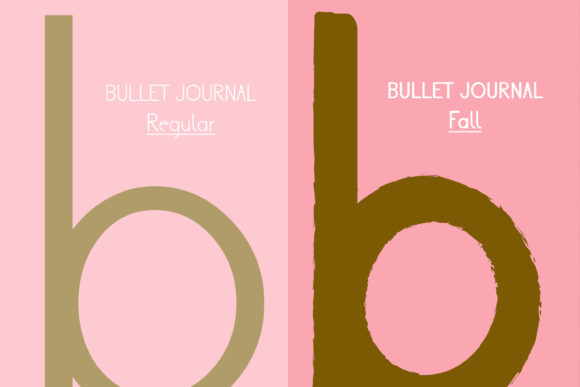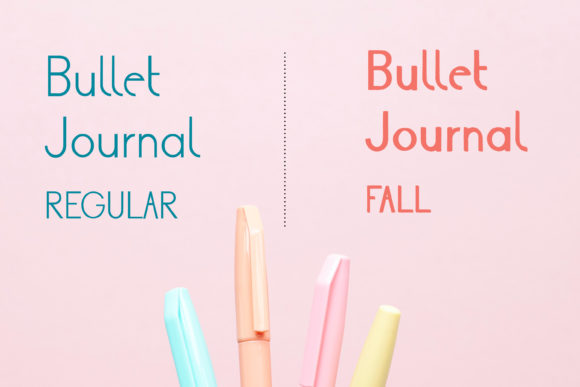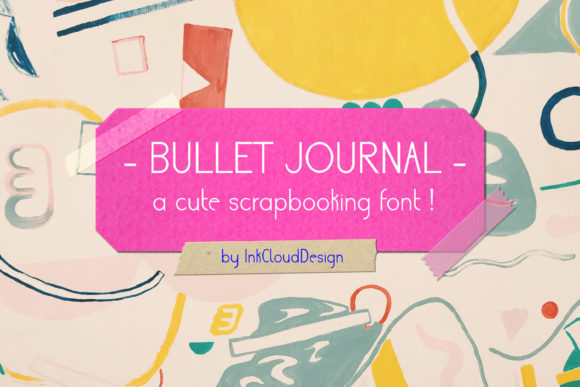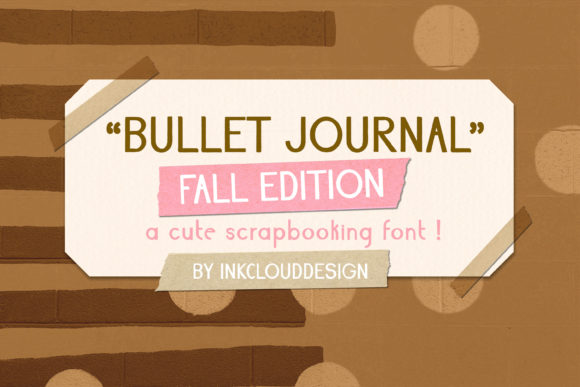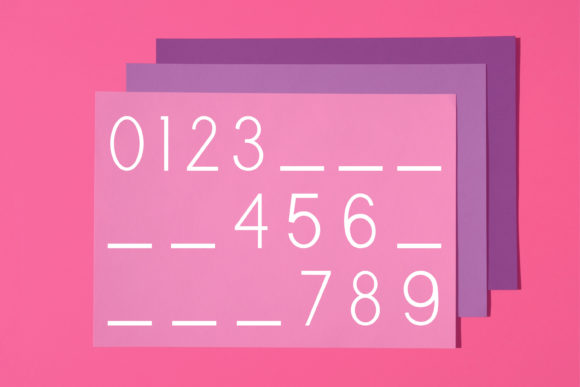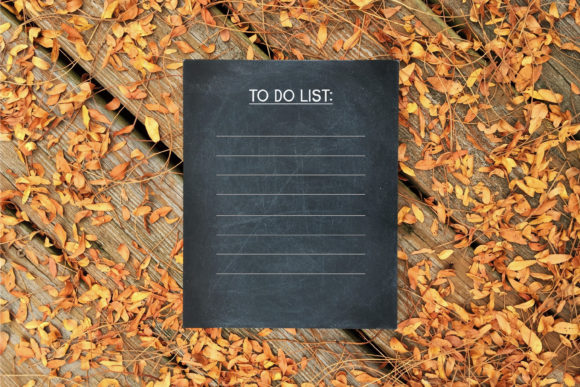
Discover the Charm of Bullet Journal Font: Elevate Your Designs with a Sweet and Friendly Handwritten Style
Are you a designer, crafter, or simply a creative individual looking for a unique and versatile font to elevate your designs? Look no further than the Bullet Journal Font! This sweet and friendly handwritten font is perfect for a wide range of projects, from bullet journals and planners to branding, packaging, and digital art. With its natural and unique style, Bullet Journal Font is sure to inspire your creativity and take your designs to the next level.
The Story Behind Bullet Journal Font
The Bullet Journal Font was created with the intention of emulating the organic and artistic feel of handwritten journaling. Its designer aimed to craft a font that would be both approachable and aesthetically pleasing, making it perfect for a variety of applications. The result is a font that exudes warmth, friendliness, and a sense of approachability, making it ideal for designers and crafters who want to add a personal touch to their work.
What Makes Bullet Journal Font So Special?
- Natural and Unique Style: The Bullet Journal Font boasts a distinctive, handwritten look that sets it apart from more traditional fonts. Its natural and unique style makes it incredibly versatile, allowing you to use it in a wide range of designs and applications.
- Highly Legible: Despite its handwritten nature, the Bullet Journal Font is highly legible, making it perfect for body text, headings, and titles. Whether you’re creating a bullet journal, a planner, or a digital art piece, this font ensures that your message is conveyed clearly and effectively.
- Endless Creative Possibilities: The only limit to using the Bullet Journal Font is your imagination! Whether you’re a designer, crafter, or simply a creative individual, this font invites you to experiment and push the boundaries of your creativity. Use it to create stunning bullet journals, beautiful branding, or eye-catching packaging – the possibilities are endless!
How to Use Bullet Journal Font in Your Designs
Integrating the Bullet Journal Font into your designs is easy! Here are a few ideas to get you started:
- Bullet Journals and Planners: Use the Bullet Journal Font to create stunning bullet journals, planners, and organizers. Add a personal touch to your layouts and make them truly unique.
- Branding and Packaging: Incorporate the Bullet Journal Font into your branding and packaging designs to add a touch of warmth and friendliness. Perfect for businesses looking to establish a more approachable and personal identity.
- Digital Art and Illustrations: Combine the Bullet Journal Font with your digital art and illustrations to create visually striking pieces. Use it to add text, captions, or quotes to your artwork.
Tips and Tricks for Working with Bullet Journal Font
To get the most out of the Bullet Journal Font, here are a few tips and tricks to keep in mind:
- Experiment with Colors and Textures: Don’t be afraid to experiment with different colors and textures to add depth and interest to your designs.
- Mix and Match with Other Fonts: Combine the Bullet Journal Font with other fonts to create visually appealing contrasts and add visual interest to your designs.
- Play with Layouts and Composition: Don’t be limited by traditional layouts and compositions. Experiment with different arrangements to create unique and eye-catching designs.
| Font Name | Bullet Journal Font |
| Author | Inkclouddesign |
In conclusion, the Bullet Journal Font is a sweet and friendly handwritten font that offers a world of creative possibilities. Its natural and unique style makes it perfect for designers, crafters, and creative individuals looking to add a personal touch to their work. With its high legibility, versatility, and endless creative possibilities, this font is sure to inspire your creativity and take your designs to new heights. So why wait? Discover the charm of Bullet Journal Font today and unlock a world of creative possibilities!